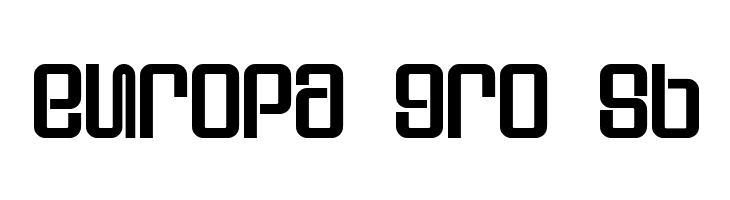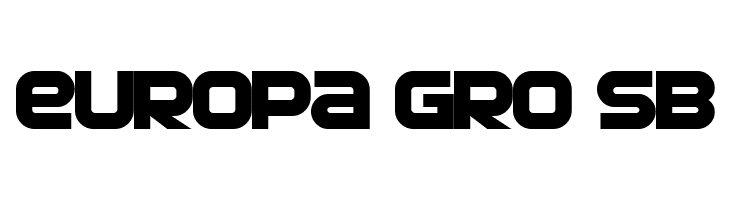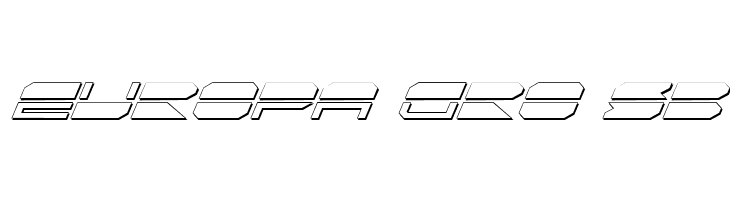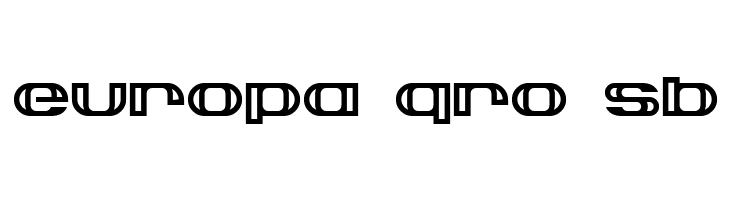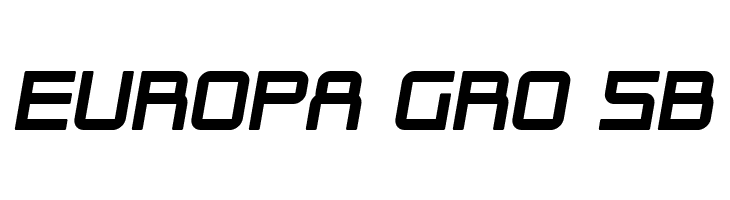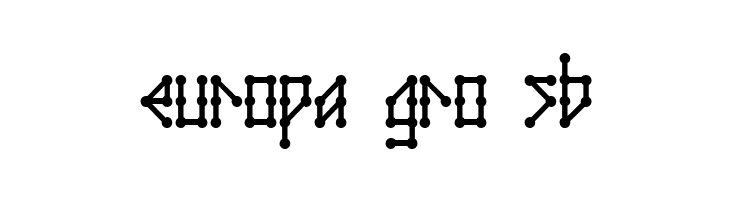
A futuristic and angular font with a sleek, geometric design.
A futuristic, dot-connected font with a tech-inspired design.
A bold, geometric font with a modern and futuristic style.
A bold, futuristic font with a geometric, industrial design.
A sleek, italicized font with a futuristic and dynamic style.
A bold, futuristic italic font with sharp, angular lines and a dynamic style.
A futuristic italic font with a shadow effect and outlined characters.
A bold, italicized font with a strong, forward-leaning slant.
A bold, italicized font with a dynamic slant and extended width.